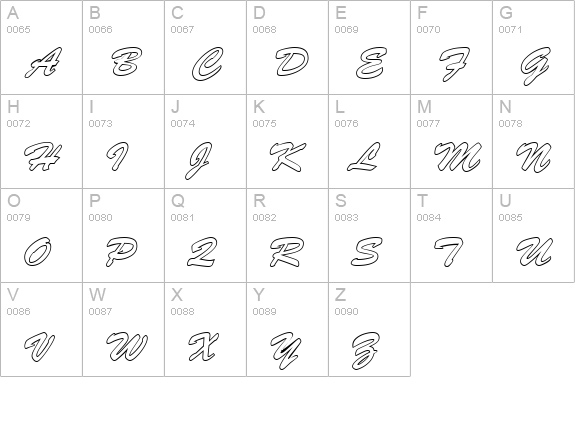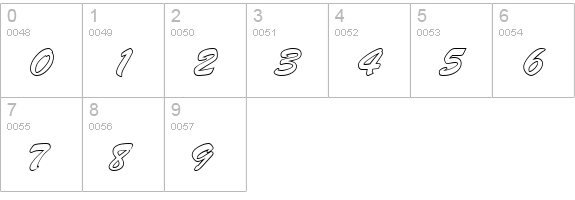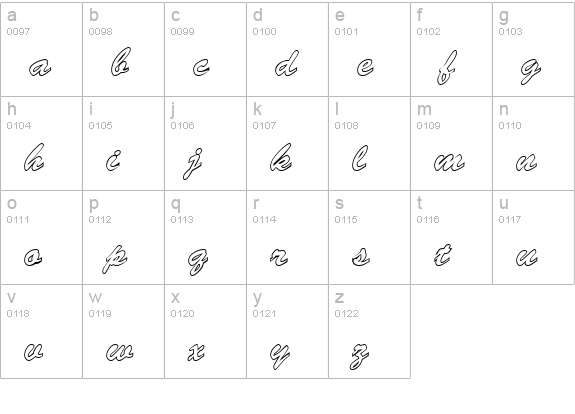
BrushedScript Hollow Font Details
BrushedScript Hollow font is a beautifully crafted typeface that exudes elegance and sophistication. Featuring delicate brush strokes and a charming handwritten style, this font is perfect for adding a touch of personality to your designs. Its hollow design adds a unique and artistic flair, making it stand out from other script fonts. The best part about BrushedScript Hollow font is that it is completely free to download at FontsMarket.com. Whether you are designing invitations, branding materials, or social media graphics, this font will elevate your projects with its graceful and modern aesthetic. Embrace the creativity and versatility of BrushedScript Hollow font in your next design project and make a lasting impression with its stylish and eye-catching appearance.